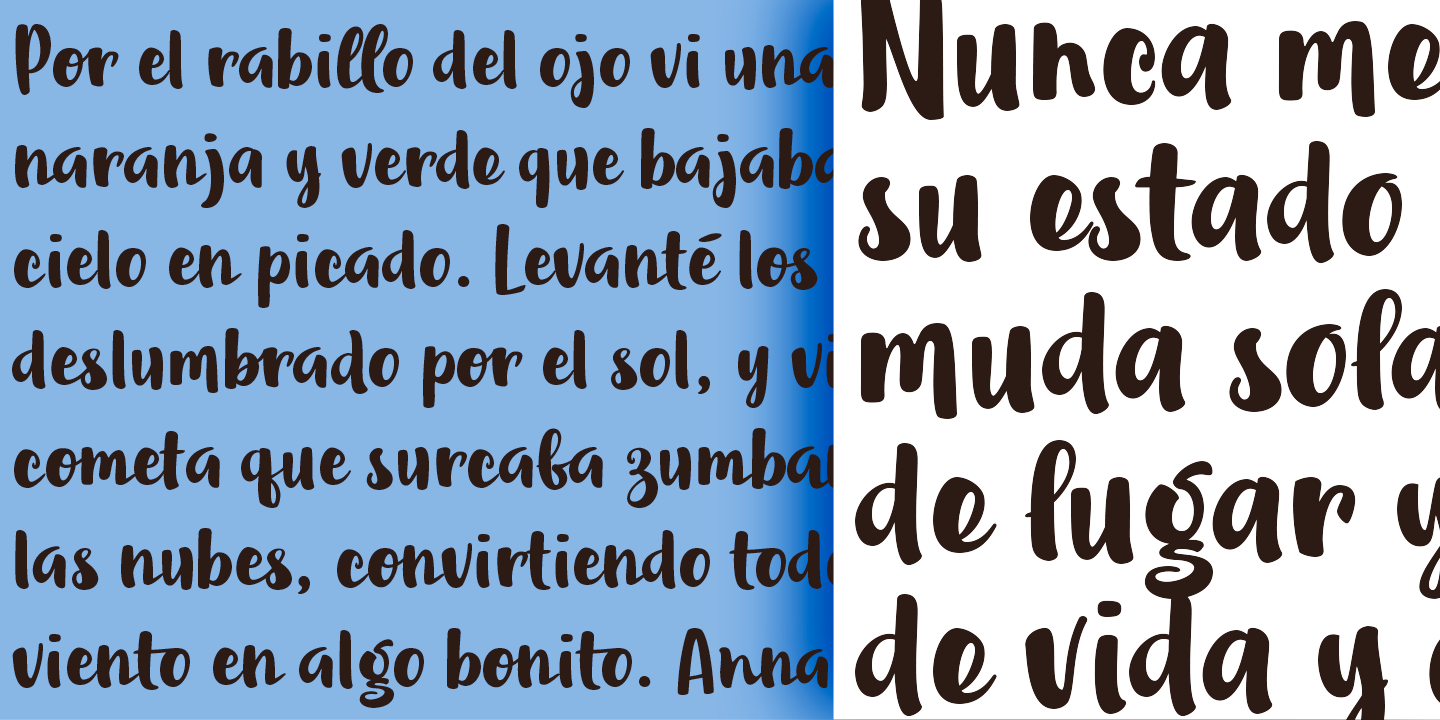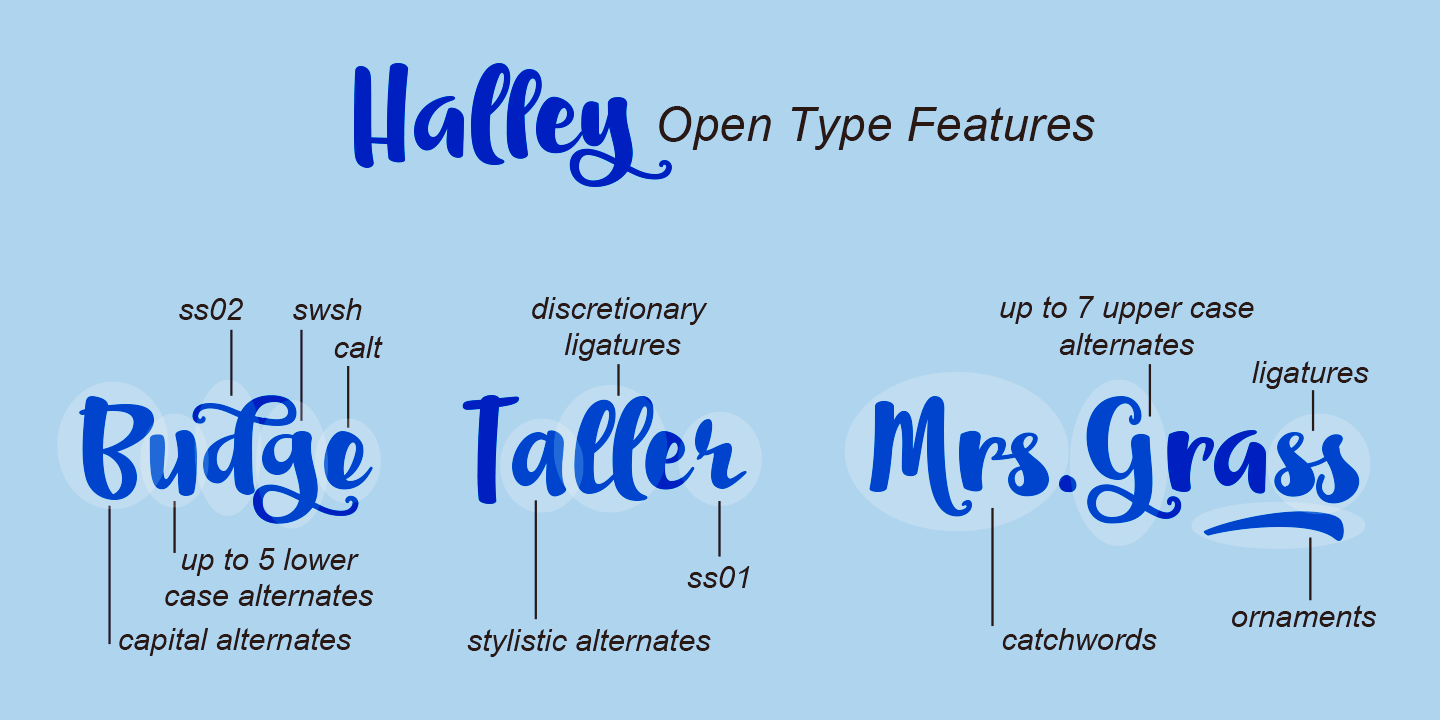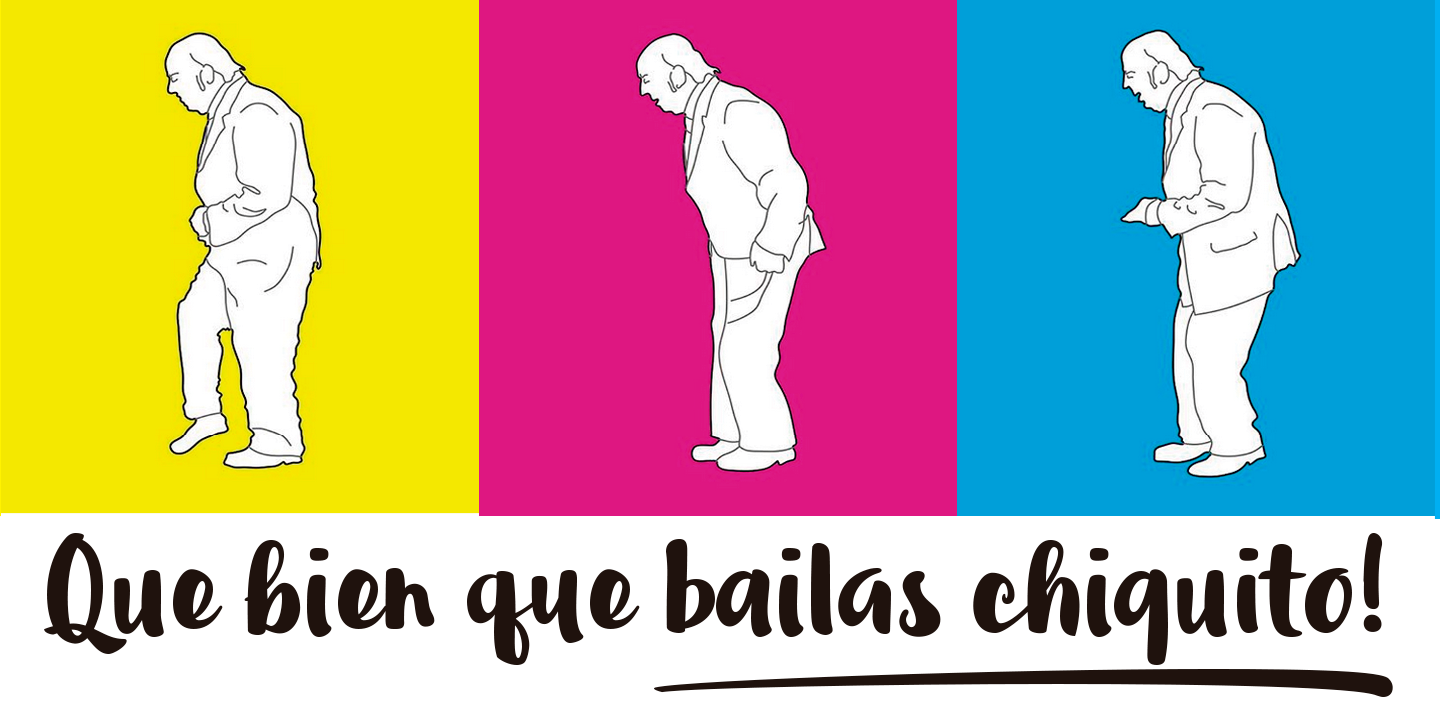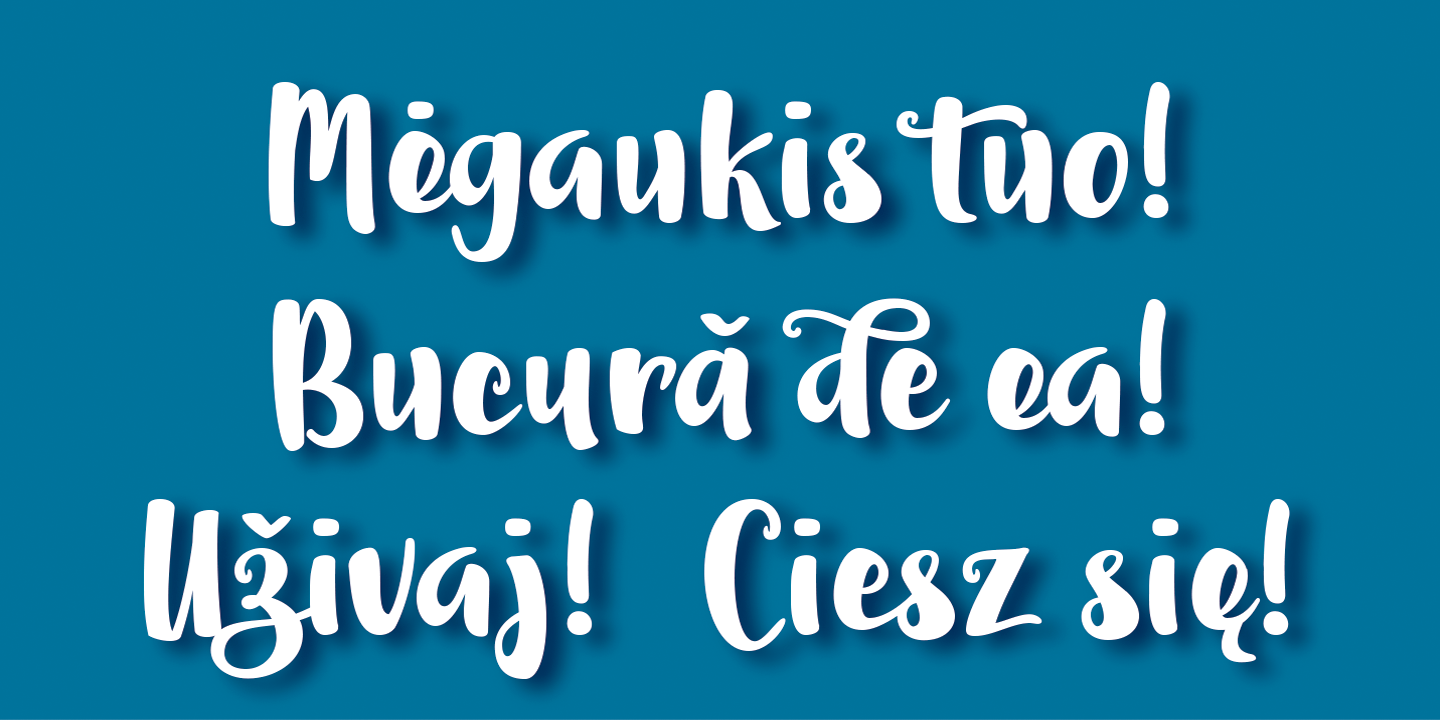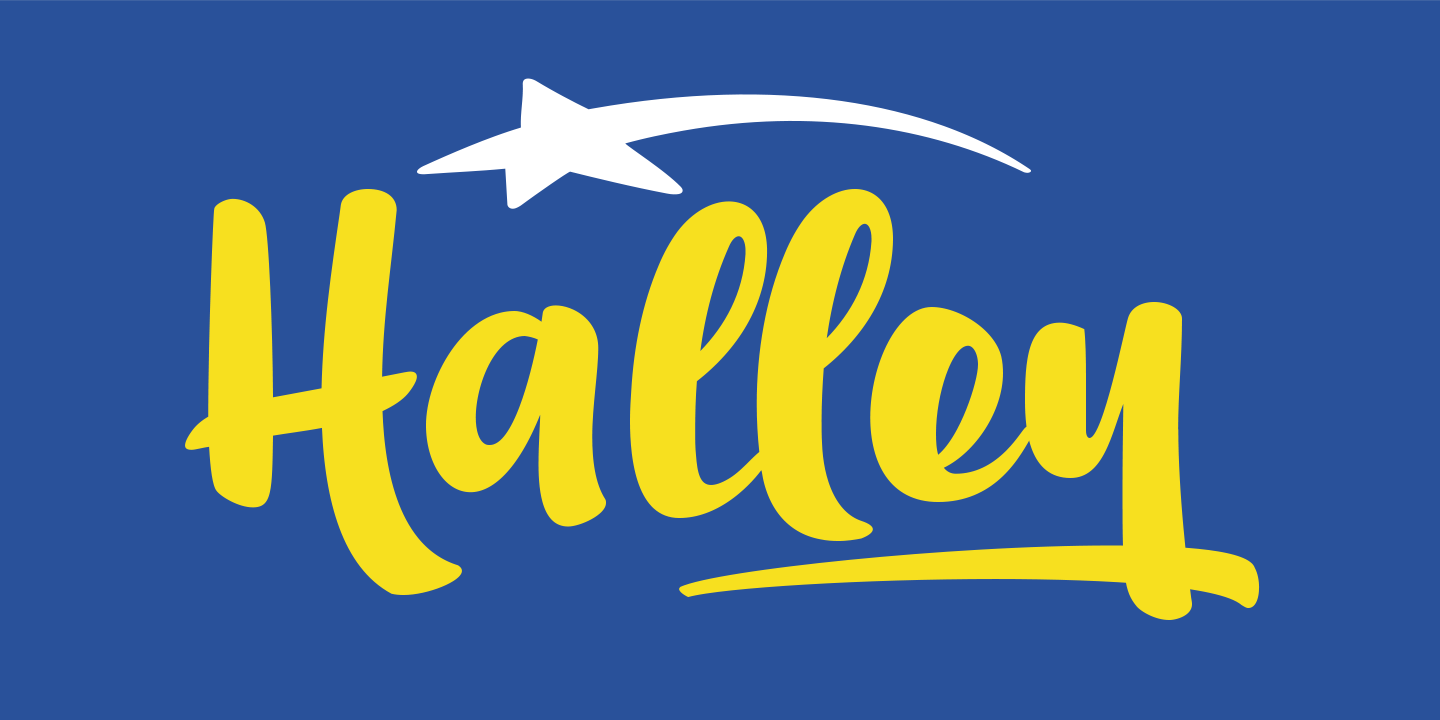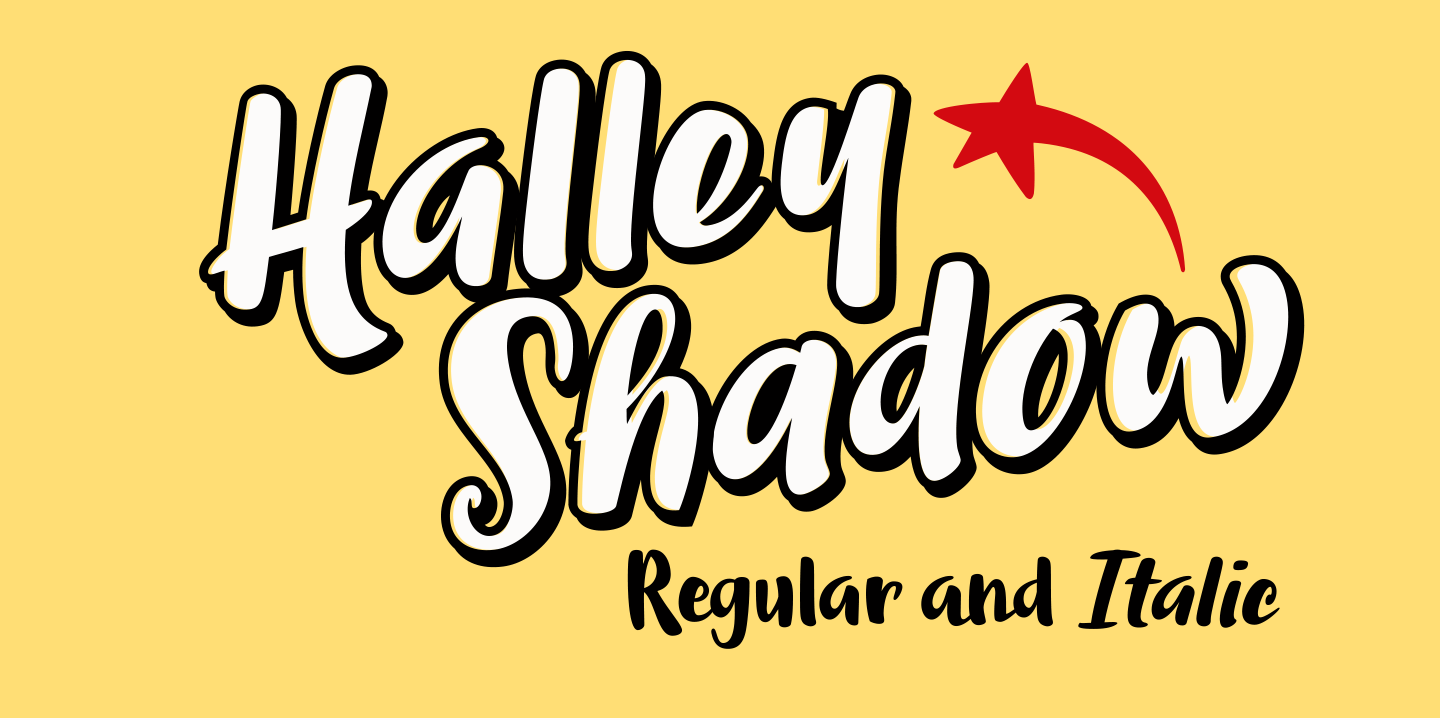
Halley
A Modern & Playful Script
Halley is a modern, playful, and casual script typeface designed to bring personality and spontaneity to your typography. Its intentionally irregular baseline gives the font a fresh, contemporary character, while preserving the warmth and charm of genuine handwriting. This natural irregularity makes Halley feel lively, expressive, and visually engaging in any context.
Hand-Painted Flow & Rhythm
Every glyph in Halley has been carefully hand-painted, resulting in smooth connections and an effortless flow across words and lines. The contrast between thick and thin strokes is finely balanced, creating a harmonious rhythm that enhances both readability and visual appeal. This delicate interplay of weight adds depth and elegance, while maintaining a relaxed, informal tone.
Advanced OpenType Features
Halley includes an extensive character set of 746 “perfect and imperfect” glyphs, designed to avoid repetition and enhance authenticity. The font features up to seven alternate uppercase letters and six alternate lowercase letters, along with both standard and discretionary ligatures, allowing designers to create a truly natural handwriting effect. These OpenType features can be accessed through compatible design applications or manually selected via the Glyph Palette for precise typographic control.
Language Support & Ornaments
To ensure versatility across languages, Halley provides full Central European language support, including alternate characters tailored specifically for those languages. Additionally, a set of thoughtfully designed ornaments has been included, offering extra creative tools for even the most demanding design projects.
Perfect for Lifestyle & Creative Projects
Halley is a perfect choice for projects that call for warmth, creativity, and character. It shines in children’s books, fashion and lifestyle magazines, restaurant menus, book covers, wedding invitations, greeting cards, logos, and business cards. It is also especially well suited for designs inspired by ink, watercolor, and other handcrafted techniques, where authenticity and expressiveness are key.